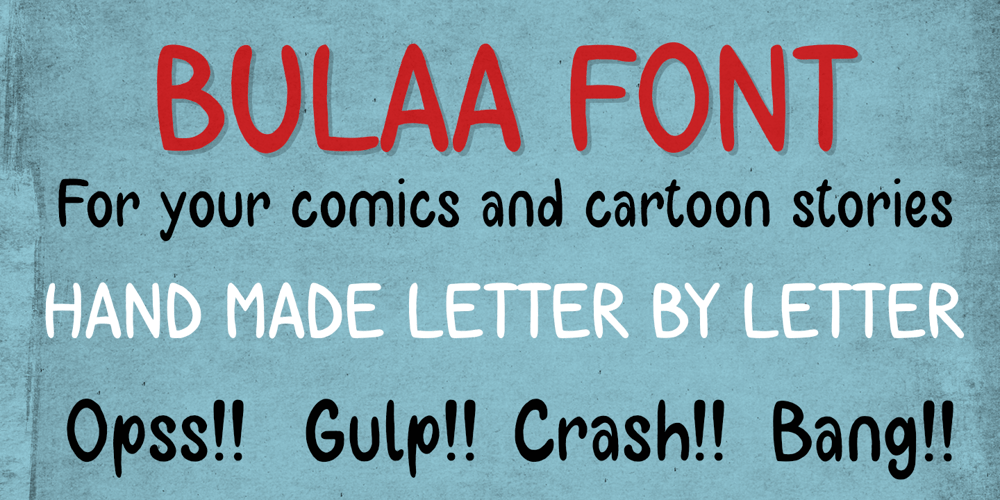
Bulaa Font Family was designed by Roberto Sofi and published by Biroakakarati. Bulaa contains 4 styles and family package options. A good font for your comics! The font is entirely hand-drawn letter by letter. It’s completed of Basic and advanced Latin characters set.Randomly there are letters with different weight for a dynamic and original look.Especially for comics, cartoons and posters.